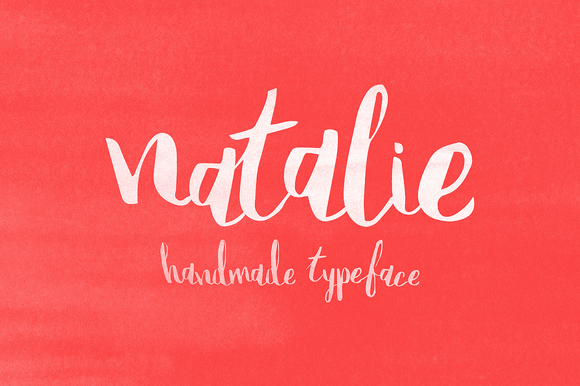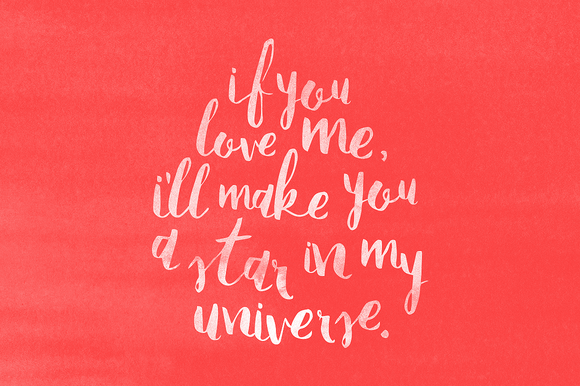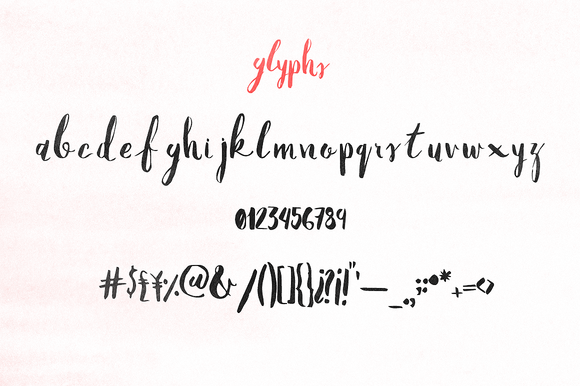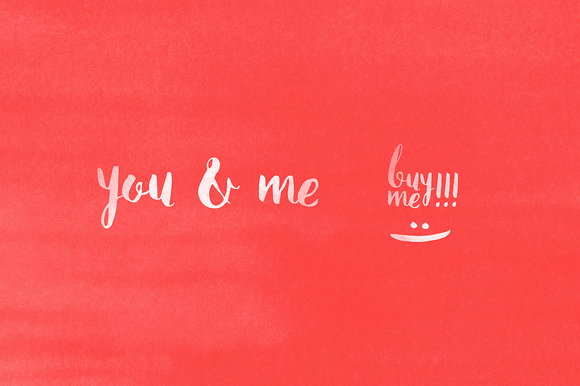
Natalie Font
Yes another handmade font why? because i love this my hands with ink, my sketchbook bleeding and tons of fonts ready to be used. So this is one of the sexy type I made this week.
Maybe it’s not the perfect font when you type but what? So here you get: